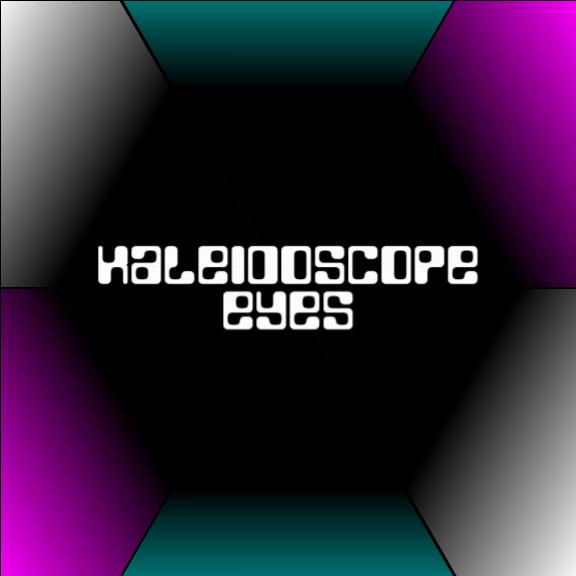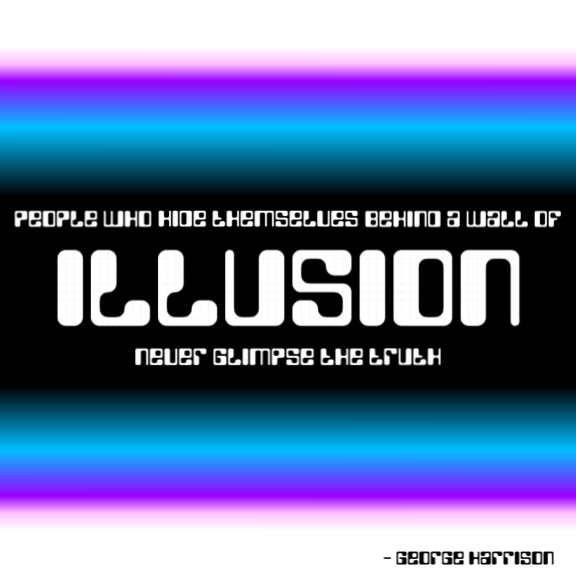
Great retrofuturistic look! I think the notches on B/K/X are too small, making them hard to distinguish. It would be nice if D and V could be more distinguished as well, but it's hard to do in a font like this. Good luck!